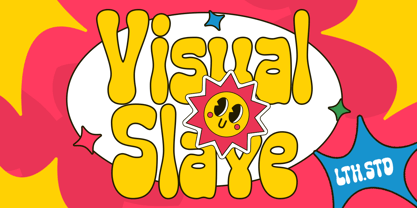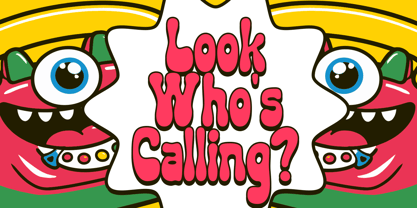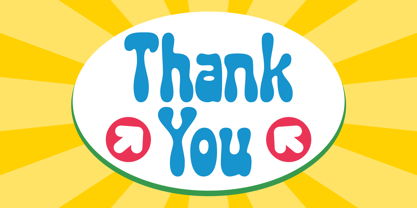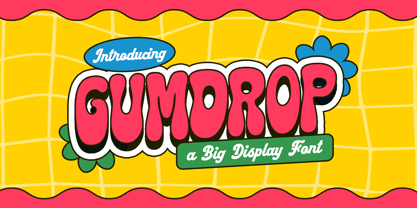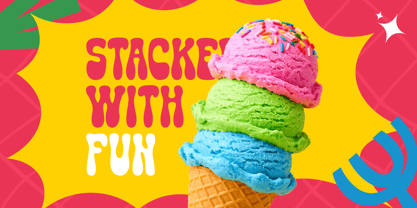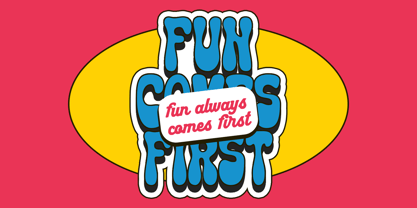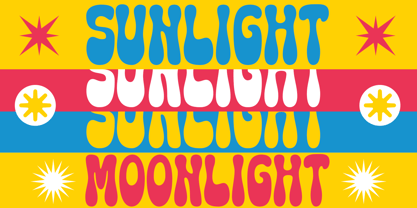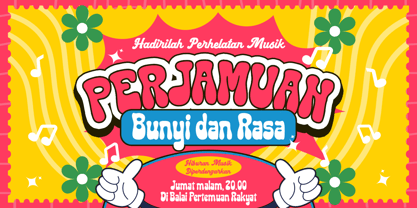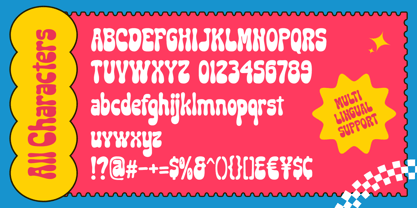
Gumdrop
Die Schriftfamilie Gumdrop wurde von Aryo Pamungkas entworfen und von Littlehand veröffentlicht. Gumdrop enthält 2 Stile und Familienpaketoptionen. Mehr über diese Familie
Gumdrop is a display font that features thick strokes and bubbly forms, creating a strong and joyful presence. the look feels retro-inspired, cool, and full of energy, making it perfect for attention-grabbing designs. ideal for headlines, posters, packaging text, stickers, and colorful visuals that need a happy and standout tone. Features : Uppercase & lowercase Numbers and punctuation Multilingual Support PUA encoded